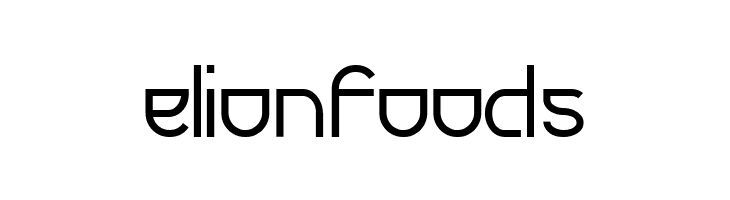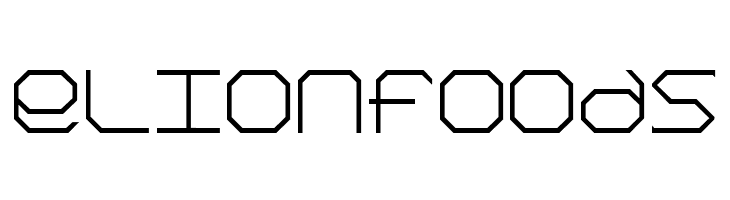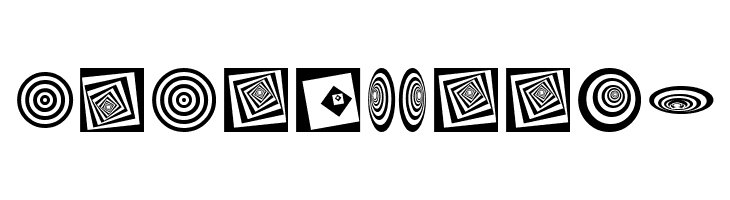
A decorative, fluid font with wavy, interconnected shapes and bold strokes.
A modern, geometric font with clean lines and rounded edges.
A bold, geometric font with angular letterforms and a modern aesthetic.
A geometric, angular font with a modern and futuristic style.
Abstract geometric symbol font with bold, decorative shapes.
A futuristic, geometric font with bold, angular letterforms.
A bold, distressed serif font with a vintage, artistic style.
A bold, modern, and decorative font with wide, rounded characters.
A bold, geometric font with a three-dimensional effect and sharp angles.
A clean, modern font with consistent stroke width and elegant design.
A bold, geometric font with a three-dimensional outline style.
A modern Art Deco-inspired font with geometric and elegant elements.
A playful and dynamic italic font with rounded edges and consistent stroke width.
A bold, tall serif font with a modern twist and strong vertical emphasis.
A modern, geometric font with wide, clean characters and a sleek design.
A bold, rounded, and modern font with geometric elements.
A modern, geometric font with clean lines and a wide stance.
A bold, modern serif font with geometric influences and elegant flourishes.
A bold, geometric font with playful circular cutouts and a futuristic style.
A bold, edgy font with sharp, angular lines and dynamic flow.
A futuristic, geometric font with bold, hollow elements and sharp angles.
A bold, three-dimensional block font with a layered, architectural style.
A whimsical and playful font with hand-drawn, irregular strokes.
A sleek, light, and italicized font with a modern and elegant style.
A bold, italicized font with a dynamic and impactful style.
A bold, rounded font with a modern and playful style.
A geometric, pixelated font with a retro digital style.
A bold, decorative font with blocky, geometric characters and low contrast.
A futuristic, geometric font with angular and linear design elements.
A bold, geometric font with angular shapes and circular elements, offering a modern and assertive style.
A bold, geometric, pixelated font with a retro digital style.
A bold, condensed, and geometric font with a modern, pixelated style.
A bold, decorative font with a three-dimensional effect and geometric shapes.
A dynamic, edgy font with sharp, angular strokes and a modern aesthetic.
A bold, geometric font with a blocky, shadowed design.